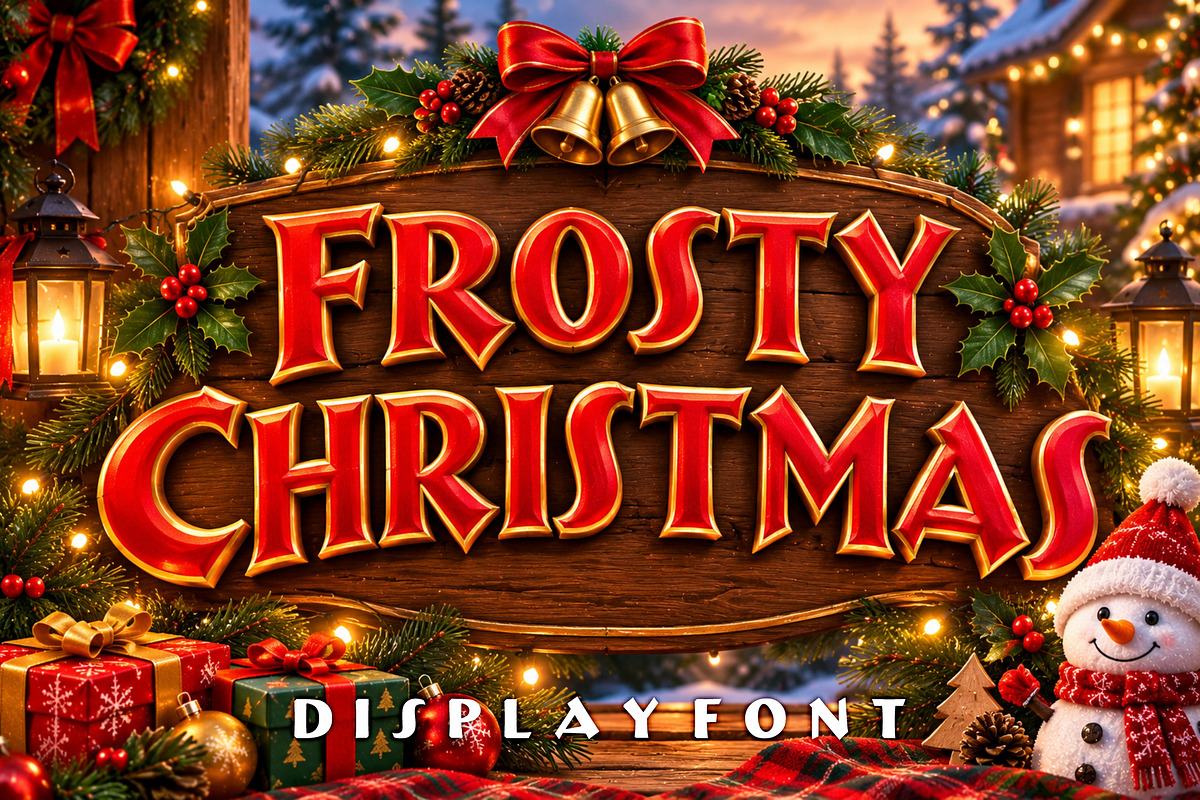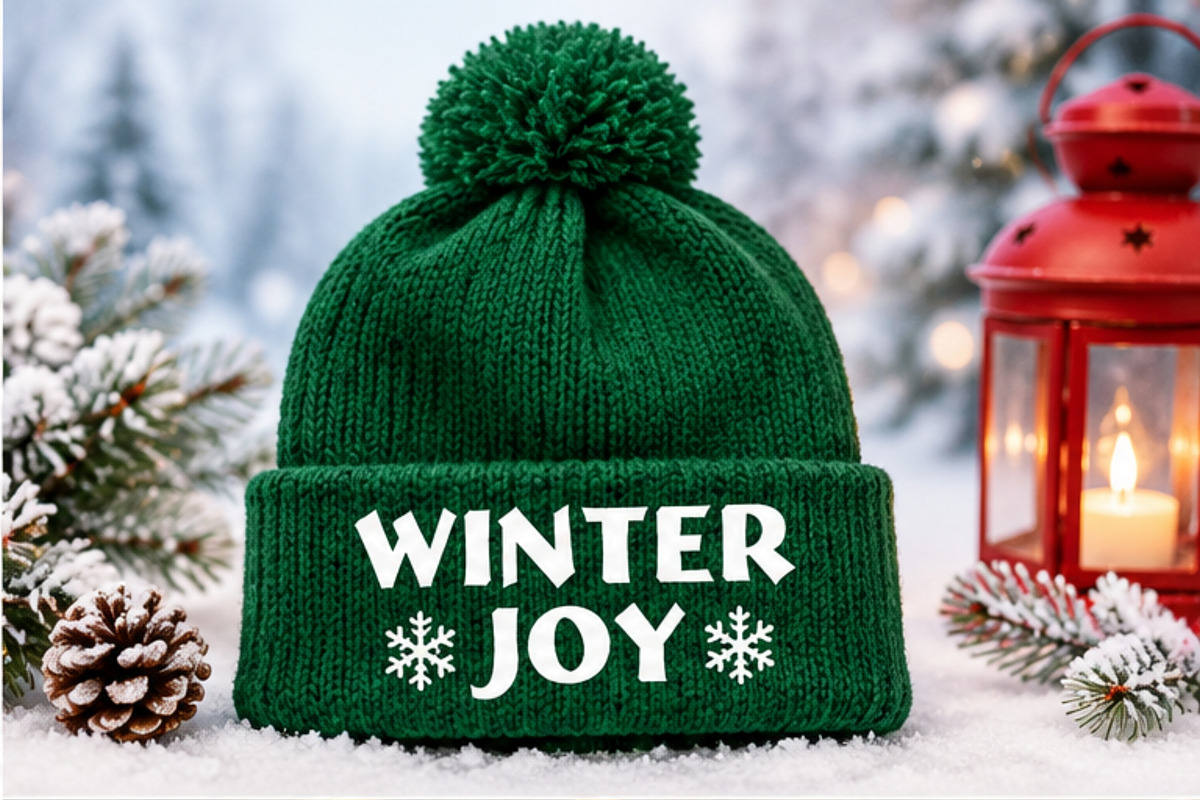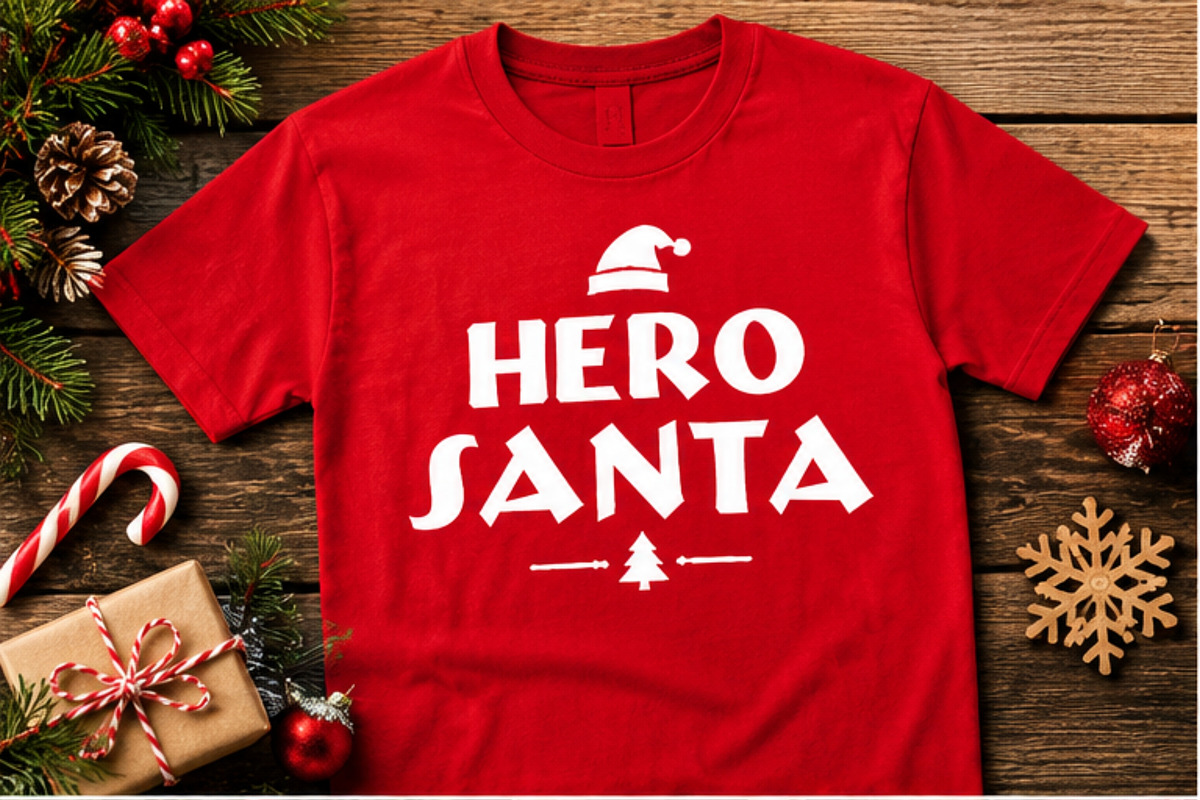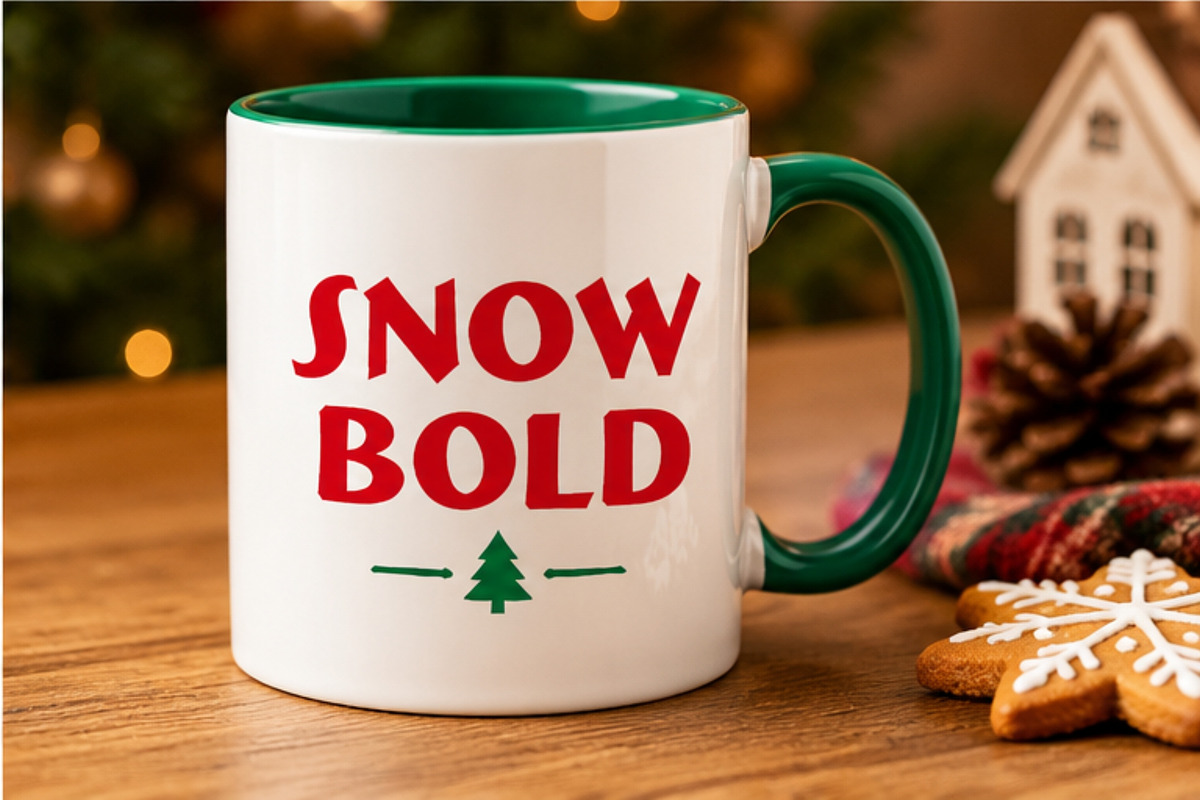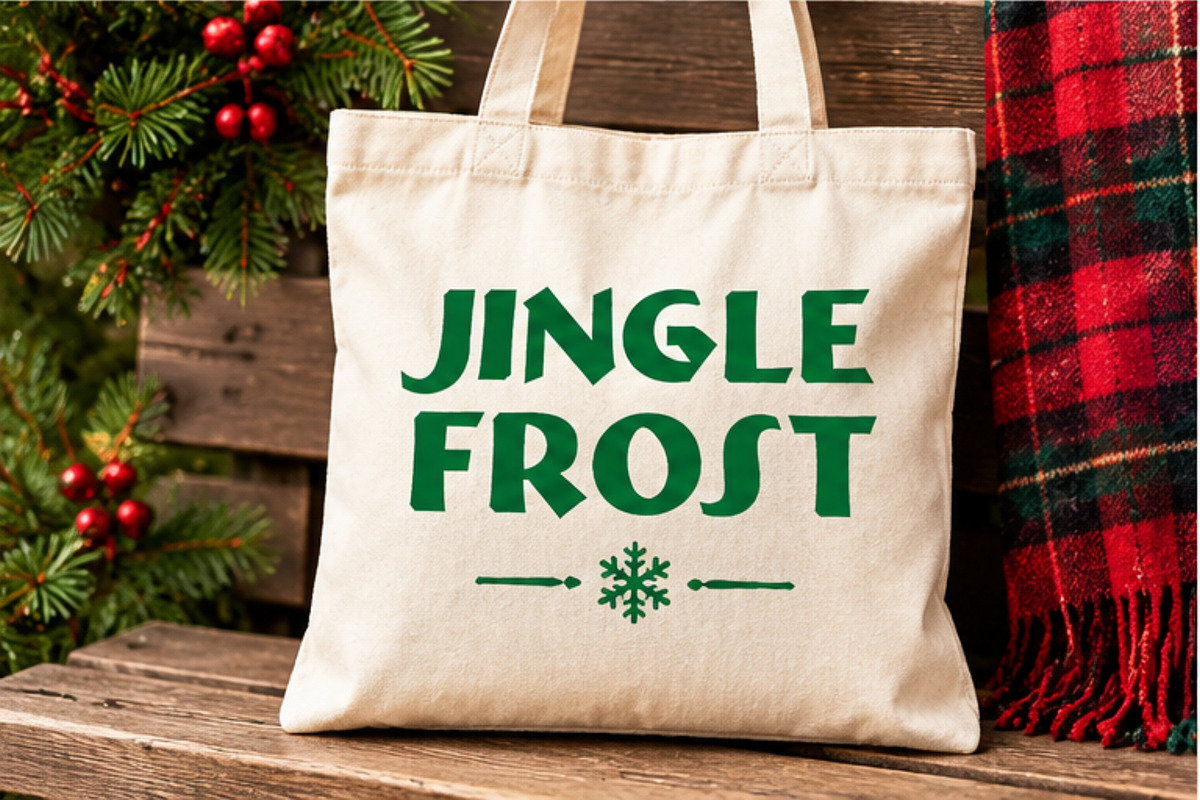
Frosty Christmas – Festive Holiday
Frosty Christmas is a bold and playful Christmas display font designed to bring a fun and festive touch to your holiday projects. With its distinctive angular letterforms and strong decorative character, this font is perfect for Christmas designs that need a bold and eye-catching appearance.
Bold Christmas display style
Unique angular and playful letterforms
Great for festive headlines and typography
Works beautifully with Christmas-themed graphics and illustrations